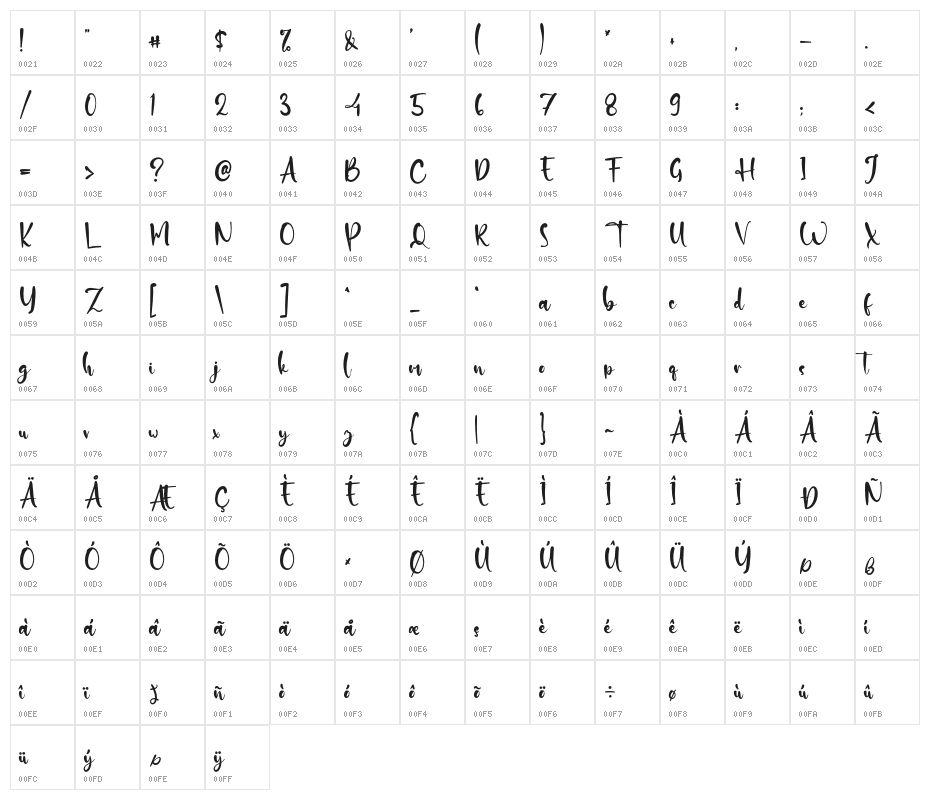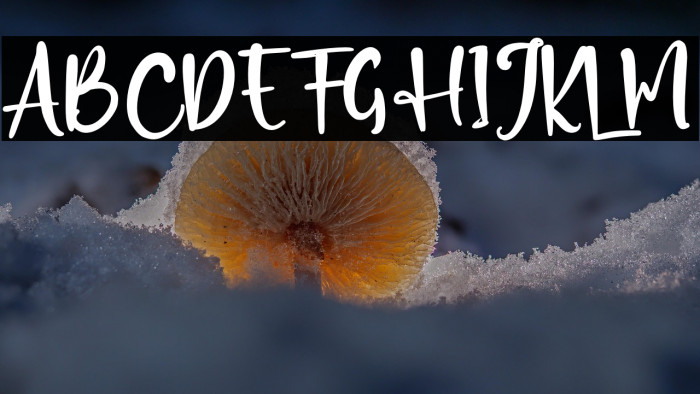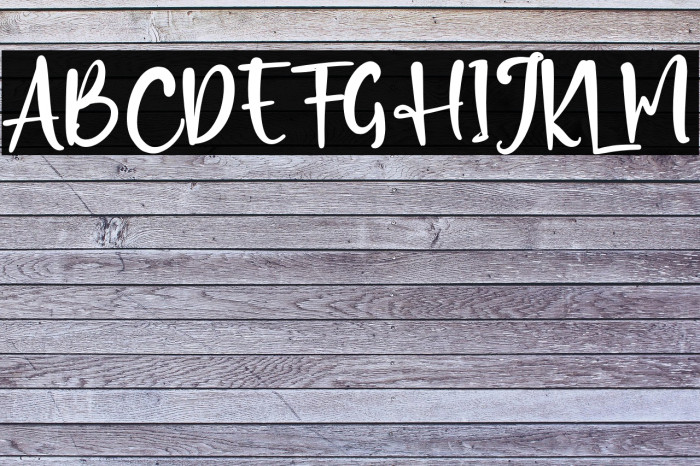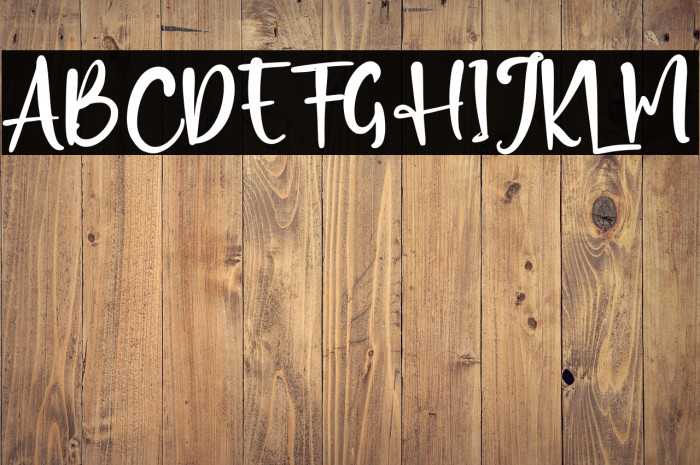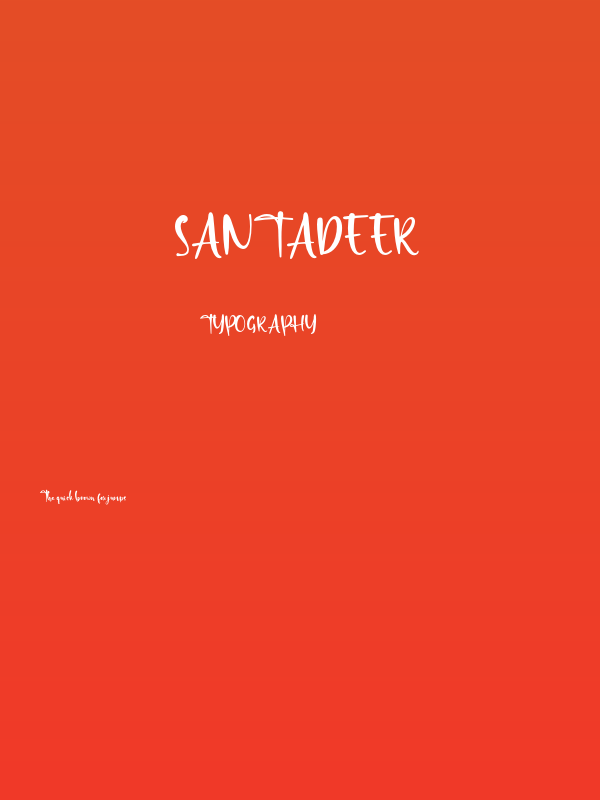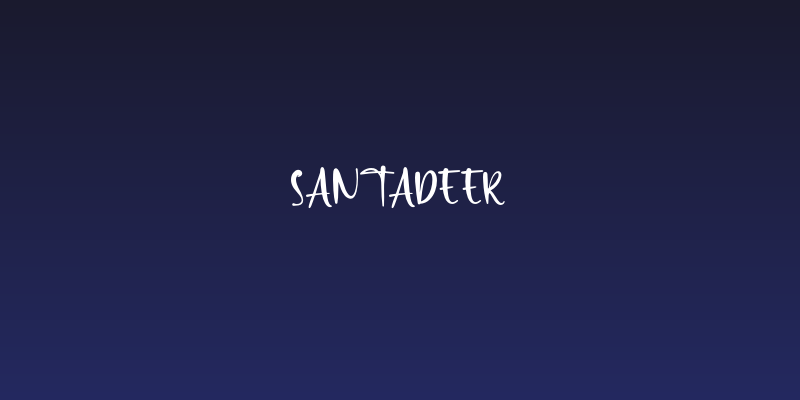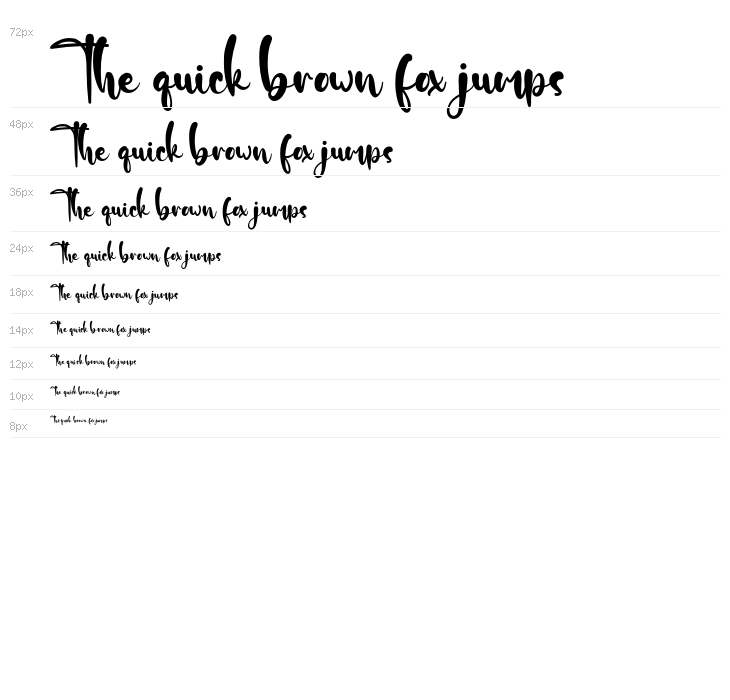
SantaDeer Font
SantaDeer Description
This font features a playful and whimsical script style, characterized by its flowing, hand-drawn appearance. The uppercase letters are bold and dynamic, with a slight slant that adds a sense of movement. The lowercase letters maintain a consistent flow, with loops and curves that enhance its casual, friendly feel. The numerals are clear and easy to read, matching the overall style of the alphabet. Special characters are creatively integrated, maintaining the playful aesthetic. This font is perfect for projects that require a personal touch, such as invitations, greeting cards, or branding for creative businesses.
| Proposed Projects | Ideal for invitations, greeting cards, creative branding, and playful designs. |